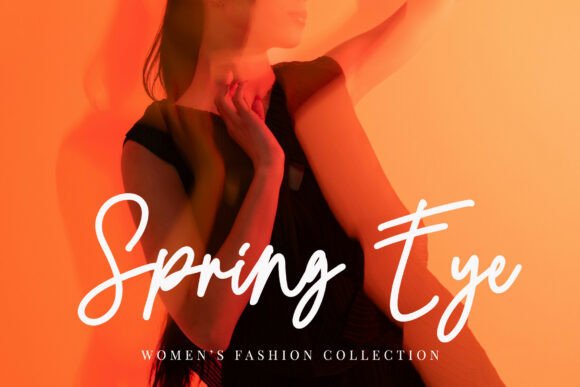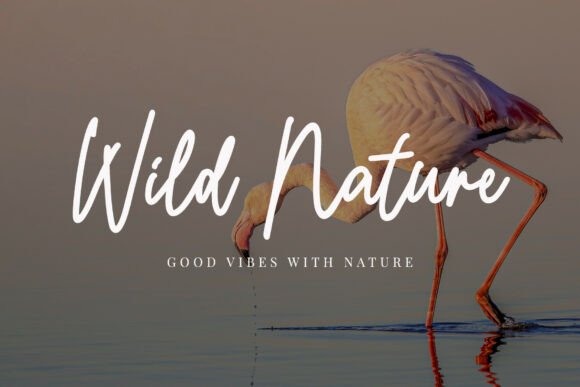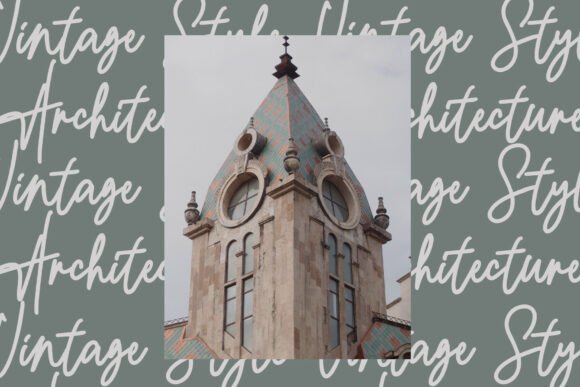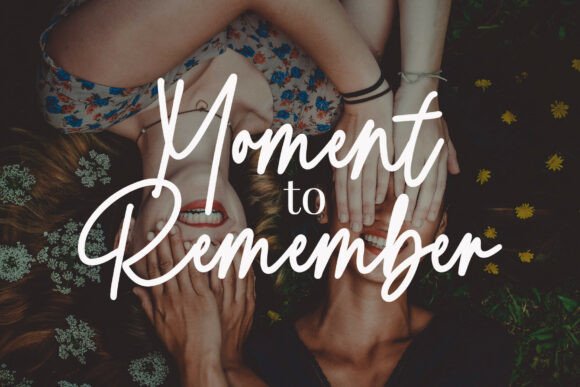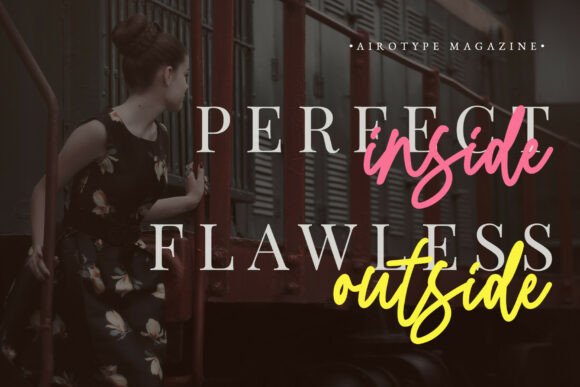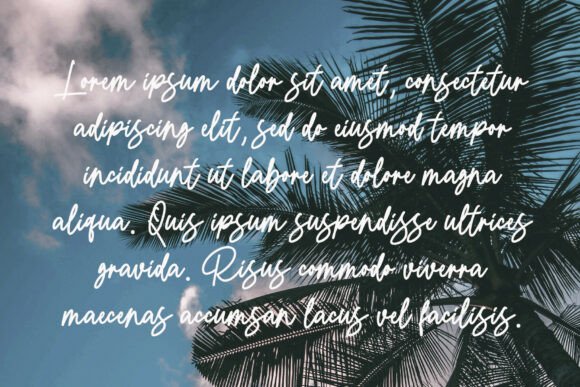
Introduction to Messy Platters Font
As you sit at your desk, surrounded by scattered papers, half-empty coffee cups, and the faint scent of creativity, you’re struck by the urge to bring your ideas to life. The blank page stares back at you, a canvas waiting to be transformed into something beautiful. It’s in these moments that the right design resource can make all the difference.
Enter Messy Platters Font, a free download that’s about to become your go-to companion for creative projects. This high-quality, monoline handwritten font is more than just a design element – it’s a way to infuse your work with the spontaneity and authenticity of a handmade touch.
With Messy Platters Font, you’ll be able to add a touch of professional, artisanal beauty to your designs, complete with a transparent background that lets your message shine through. Whether you’re working on a social media signature, a personalized stationery piece, or a creative lifestyle header, this font is sure to deliver a sense of approachable style that resonates with your audience.
Key Features of Messy Platters Font
- Perfect for designers and artists seeking a distinctive font to elevate their creative project, Messy Platters Font offers a one-of-a-kind aesthetic.
Honest Review: Messy Platters Font
I recently stumbled upon the Messy Platters Font and I must say it’s a great addition to any creative project. The high quality design is exactly what I look for in a design resource.
- Unique and creative design that can add a personal touch to any project
- Perfect for creating eye-catching graphics and titles
- The font may not be suitable for formal or professional projects due to its casual and playful nature
- Some users may find the font too quirky or distracting
Overall, I’m impressed with the Messy Platters Font and I would definitely consider using it for future creative projects. The design is versatile and can be used in a variety of contexts. While it may not be for everyone, I think it’s a great resource for designers looking for something unique and high quality.
How to Use Messy Platters Font
The Messy Platters Font is a unique and versatile design resource perfect for creative projects. With its high quality and transparent background, this font is ideal for adding a touch of elegance to your designs.
To get the most out of the Messy Platters Font, try experimenting with different font sizes, colors, and combinations. This font pairs well with other creative fonts and is perfect for adding a touch of whimsy to your designs.
The Messy Platters Font is perfect for:
- Creating invitations and event graphics
- Adding a touch of elegance to your blog or website